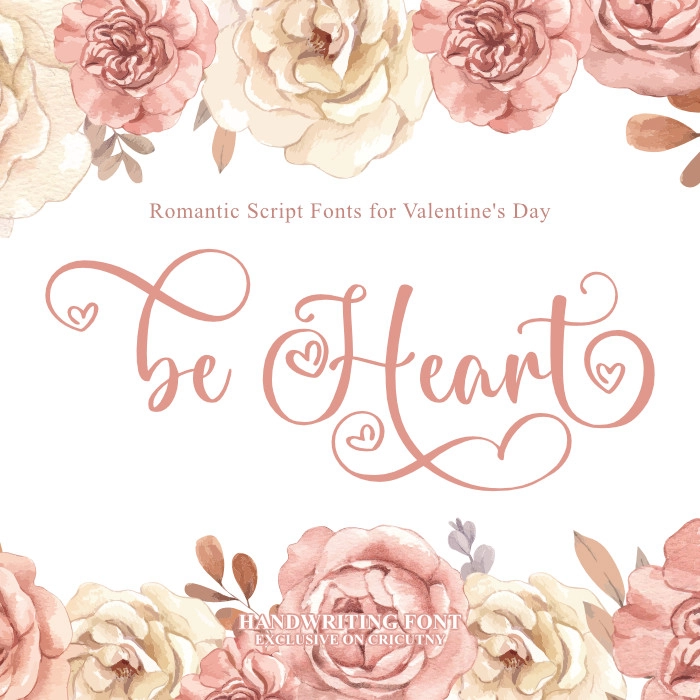
Introducing the Be Heart script font. A font will multiple swirly tails. The font is beautifully created with hearts in the letters and curly tails. That brings a romantic touch to your design. In addition, if you speak french, the French accent is included—é, â, ê, î, ô, û, ç.
The long tail letters: